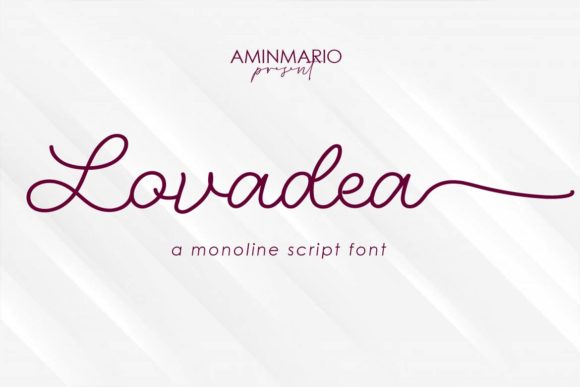
Adorn your designs with the charm of Lovadea Font, a graceful script typeface that exudes elegance and creativity. Its delicate monoline strokes dance across the page, evoking a sense of effortless beauty. Whether you're crafting wedding invitations, stationery, social media posts, or greeting cards, Lovadea Font adds a touch of sophistication that captivates hearts.
Lovadea Font is more than just a collection of letters; it's an artistic expression that transforms words into works of art. Its natural flow mimics the fluidity of handwritten strokes, giving your designs an authentic, personal feel. The curves of each character are meticulously crafted to create visual harmony, guiding the reader's eye through your text with effortless grace.
With Lovadea Font, you have a versatile tool that adapts seamlessly to a variety of projects. Its elegant style lends itself perfectly to wedding invitations, adding a touch of romance and timeless beauty to your special day. Create stunning calligraphy that captures the essence of your love story, leaving a lasting impression on your guests.
Beyond weddings, Lovadea Font shines in stationery art, where its delicate strokes bring a touch of whimsy and charm to your creations. Imagine crafting personalized letterheads, envelopes, and business cards that exude professionalism and creativity. Lovadea Font elevates your stationery to a new level, making each piece a reflection of your unique style.
In the realm of social media, Lovadea Font is a powerful tool for creating eye-catching posts that demand attention. Its unique monoline script adds visual interest to your content, making your words stand out from the crowd. Whether you're promoting a product, sharing a personal story, or simply connecting with your audience, Lovadea Font ensures your message is delivered with style.
And when it comes to greeting cards, Lovadea Font adds a heartwarming touch that conveys your sentiments with sincerity. Create custom cards for birthdays, anniversaries, holidays, or just to express your appreciation. The flowing curves of Lovadea Font add a personal touch that makes your cards truly special, leaving a lasting impression on the recipient's heart.
With Lovadea Font, you unlock a world of creative possibilities. Its versatility and charm make it an essential tool for any designer, calligrapher, or creative professional. Embrace the beauty of handwritten elegance and let Lovadea Font transform your designs into captivating masterpieces.